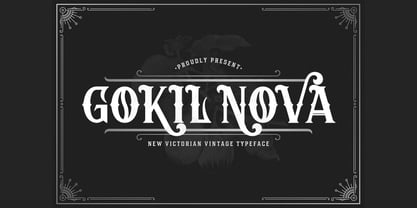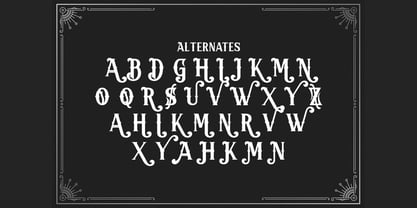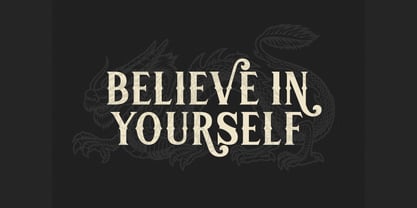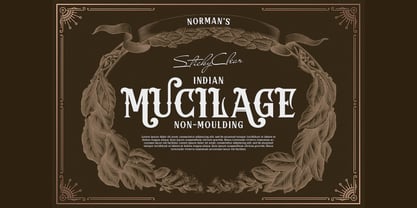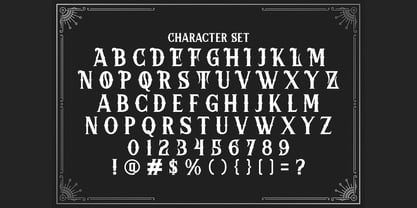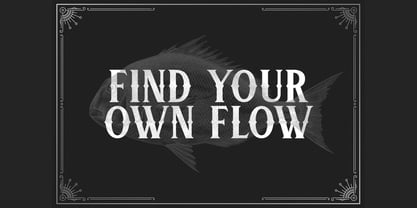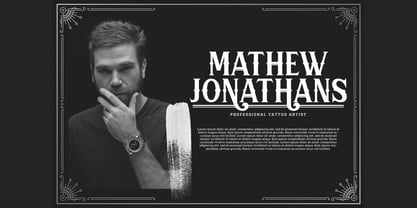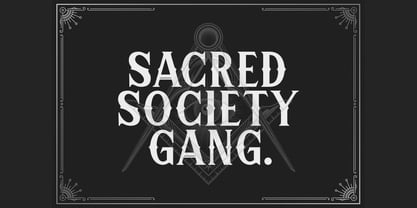
The Gokil Nova Font Family was designed by Virgiawan Listanto and published by Stringlabs Creative Studio. Gokil Nova contains 1 styles.
Gokil Nova is a striking Victorian-style font that blends ornate vintage charm with bold, adventurous flair. Inspired by 19th-century poster designs and antique lettering, this font features elaborate details, sharp serifs, and a theatrical presence that commands attention.
Designers: Virgiawan Listanto
Publisher: Stringlabs Creative Studio
Foundry: Stringlabs Creative Studio
Design Owner: Stringlabs Creative Studio
Gokil Nova